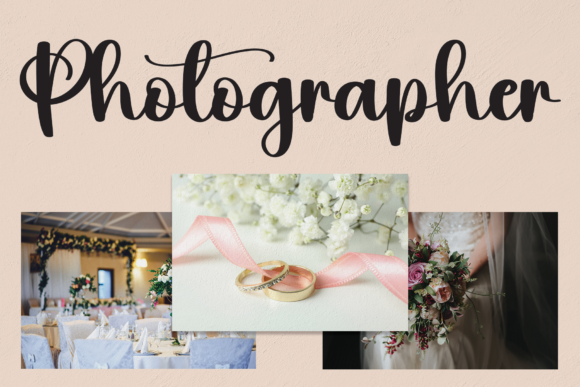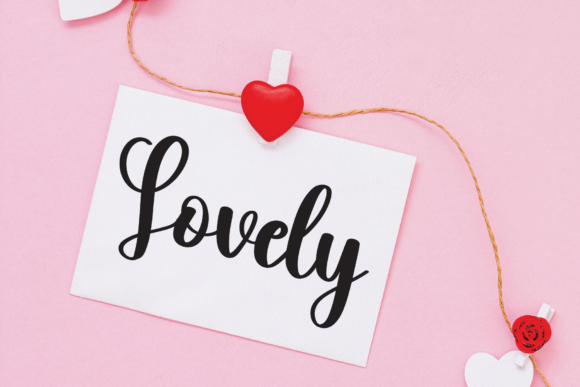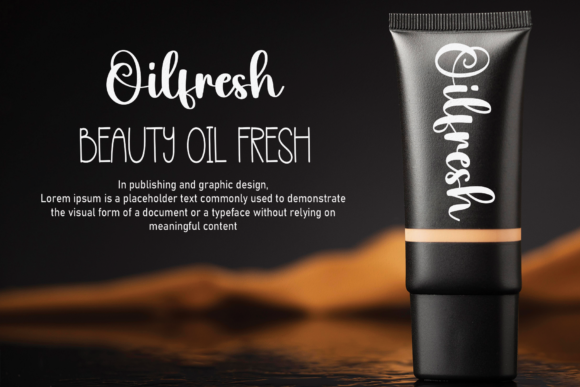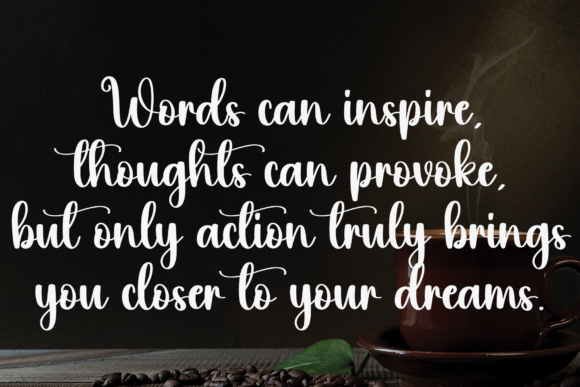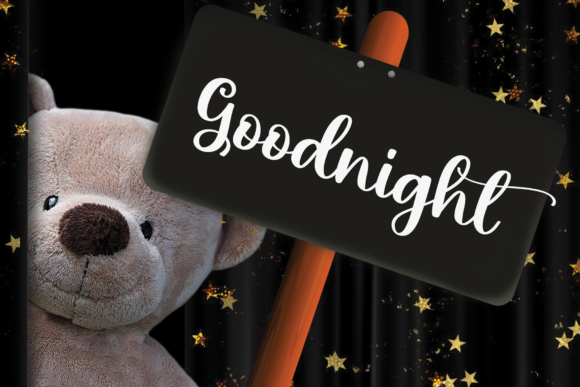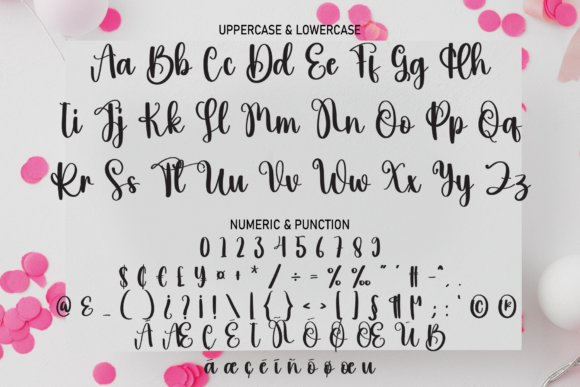
The Perfect Script for a Special Occasion
As a designer, have you ever found yourself brainstorming ideas for a holiday-themed project, only to be stuck on the perfect font? You envision a delicate, elegant script that captures the essence of the season, but nothing seems to fit the bill. Well, your search is over – enter the Holiday Birthday Font, a stylish and sophisticated script font that’s sure to elevate any branding project.
This beautiful font is designed to make a statement, whether you’re creating a logo, designing a t-shirt, or developing a creative product. Its versatility and charm make it a valuable addition to any designer’s toolkit, allowing you to add a touch of holiday magic to your work. With the Holiday Birthday Font, you’ll be able to create projects that are truly one-of-a-kind and leave a lasting impression on your audience.
Holiday Birthday Font Key Features
- Font Style: A playful, cursive font designed specifically for birthday and holiday celebrations.
- Unique Characteristics: Features festive and colorful ornaments, swashes, and flourishes to add a celebratory touch to your designs.
Holiday Birthday Font Review
I recently had the chance to work with the Holiday Birthday Font, and I have to say it’s a mixed bag. On the one hand, there are some things that really shine ✨.
- The font’s festive and playful vibe is perfect for holiday-themed designs, especially birthday celebrations.
- The characters are well-designed and visually appealing, with a good balance of bold and cursive elements.
- The font’s versatility allows it to work well in a variety of contexts, from invitations to party decorations.
However, there are some limitations that hold it back ⚠️.
- The font is not ideal for formal or professional designs, as it may come across as too casual or childish.
- The character set is somewhat limited, which may not be suitable for longer texts or complex layouts.
- The font’s bold and cursive elements can sometimes clash or feel inconsistent, depending on the specific design.
Overall, the Holiday Birthday Font is a fun and festive addition to any designer’s toolkit. While it may not be suitable for every project, it’s a great choice for holiday-themed designs where a playful and celebratory vibe is desired.
The Holiday Birthday Font is perfect for:
- Creating festive invitations and party decorations.
- Designing holiday-themed graphics and illustrations.
- Adding a touch of whimsy to your social media posts and marketing materials.